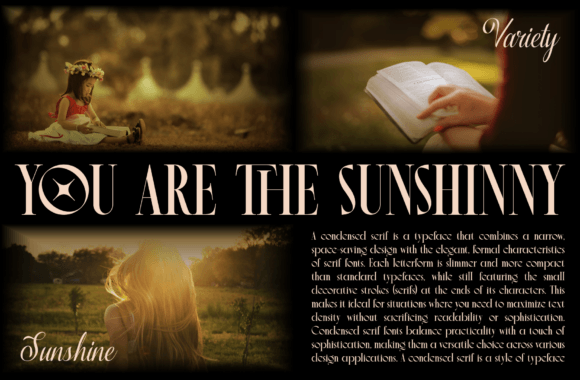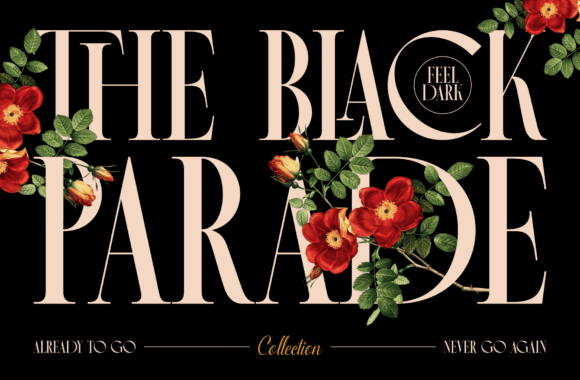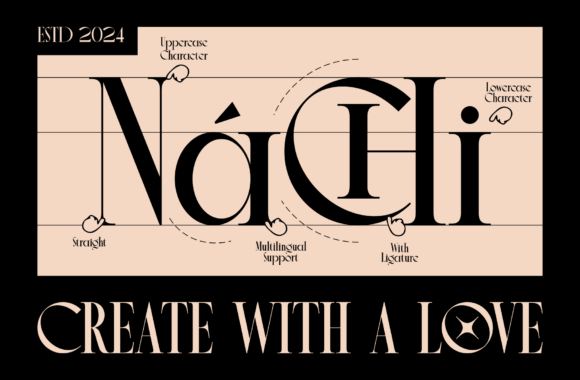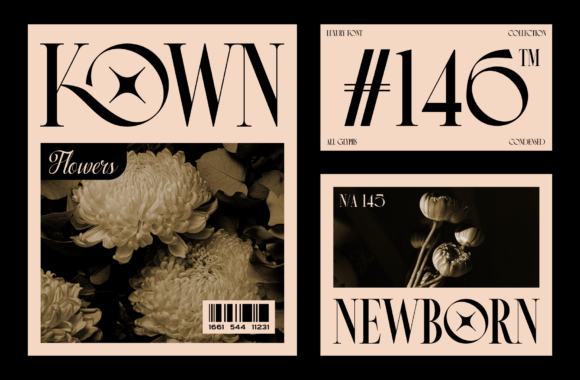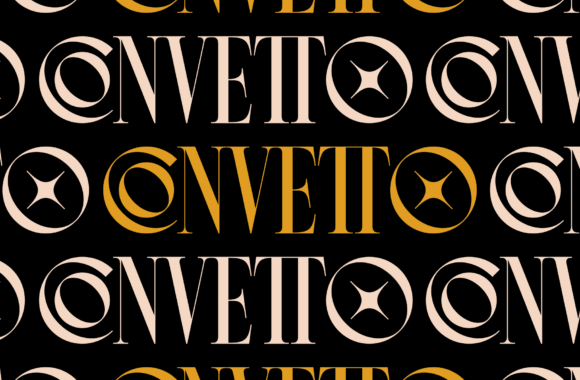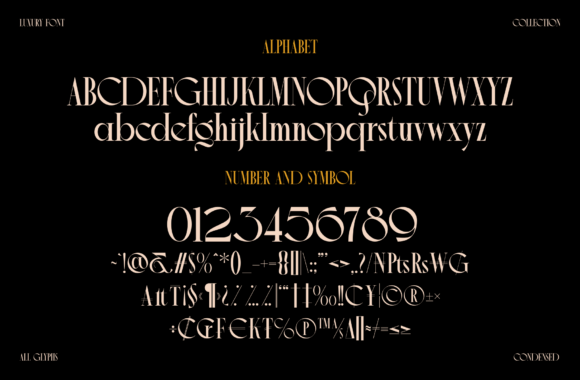
Introducing Arose: The Elegant Serif Typeface That’s About to Elevate Your Designs
I’ll never forget the moment I realized that typography could make or break a design project. I was working on a luxury brand campaign, and my client was adamant that the font had to exude elegance, sophistication, and a touch of firmness. I scoured the internet for the perfect typeface, but nothing seemed to fit the bill. That was until I stumbled upon a font that would change the game: **Arose**. This elegant serif typeface has been a game-changer for my designs, and I’m excited to share its beauty with you.
The Design Story Behind Arose
Arose was crafted with one goal in mind: to create a font that embodies luxury, elegance, and firmness. The designers behind Arose achieved this by incorporating a series of thoughtful design elements, including balanced thin and thick lines, gentle curves, and elegant, clean serifs. The result is a typeface that exudes refinement and poise.
A Personal Review of Arose
So, what do I love about Arose? 🤔 Here are a few highlights:
- ✨ Elegant and refined: Arose is perfect for projects that require a touch of sophistication.
- ✅ Highly legible: The font’s clean lines and balanced design make it easy to read, even at small sizes.
- 💡 Versatile: Arose works beautifully for both headings and body text.
Of course, no font is perfect, and Arose is no exception. Here are a few quirks to keep in mind:
- ⚠️ Limited availability of certain characters: Some special characters may not be included in the font.
- 🤔 May require adjustments for certain languages: Arose may require tweaks for languages with unique character sets.
The story behind Arose’s design is one of passion and dedication. According to its creators, Arose was inspired by the classic serif typefaces of the past, with a modern twist. The goal was to create a font that would be both elegant and versatile, suitable for a wide range of design projects.
| Font Name | Arose Font |
| Author | maikofarazhatta |
| What is Arose? | Arose is an elegant serif typeface designed for luxury brands and creative projects. |
| What design elements make Arose unique? | Arose features balanced thin and thick lines, gentle curves, and elegant, clean serifs. |
| Is Arose available in multiple languages? | Arose supports multiple languages, but some characters may require adjustments. |